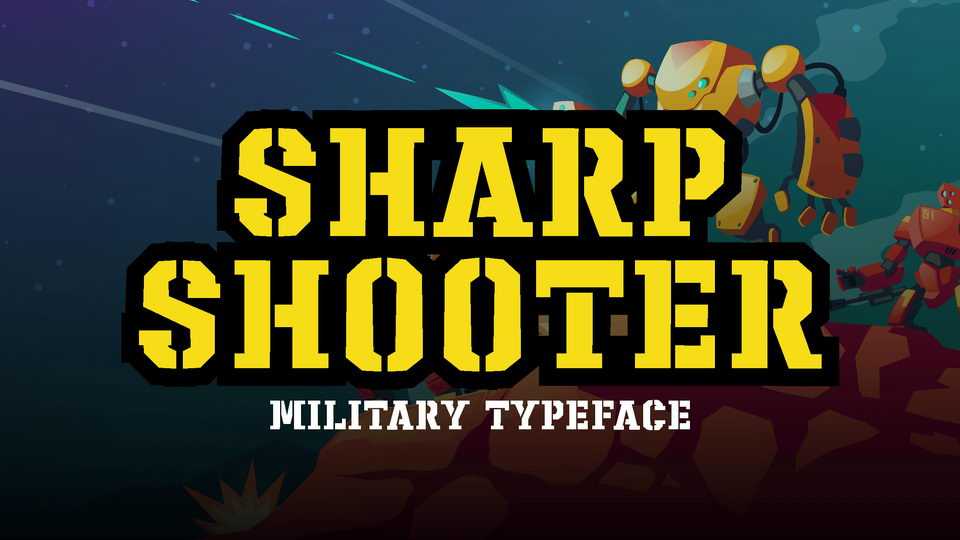
Download Sharpshooter font, a strong stencil cutout typeface that emphasize the military shape you took. Sharpshooter took the serif style into the training, and becoming the best marksman in the field.